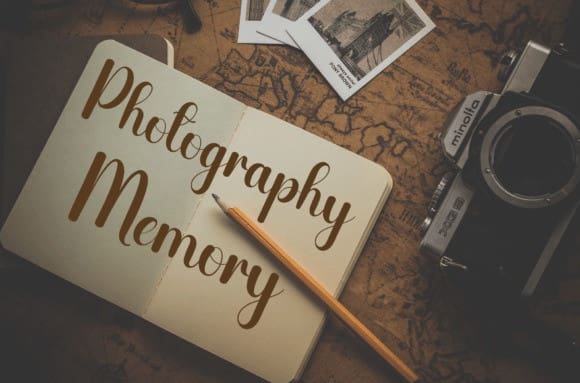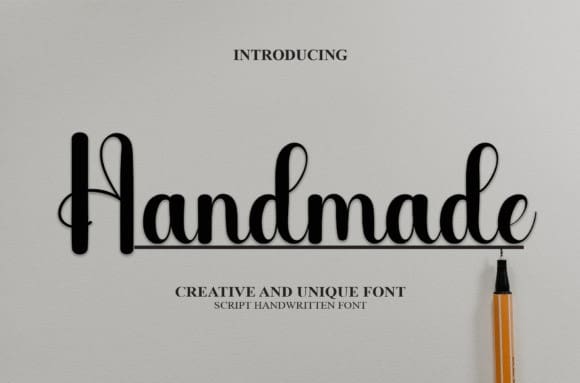
Handmade Creative Font
Handmade Creative Font, is a sweet and friendly handwritten font. Fresh and neat, this font is ideal for writing wedding invitations, cards, or any other design that might need a fun touch!